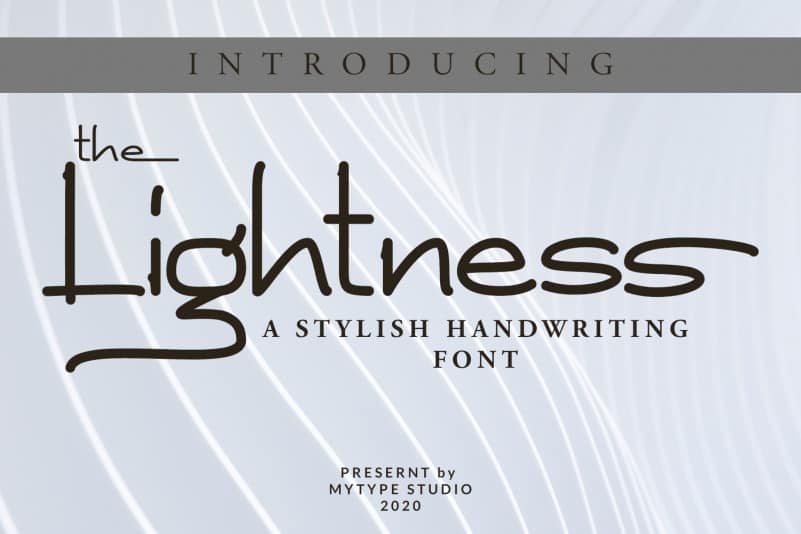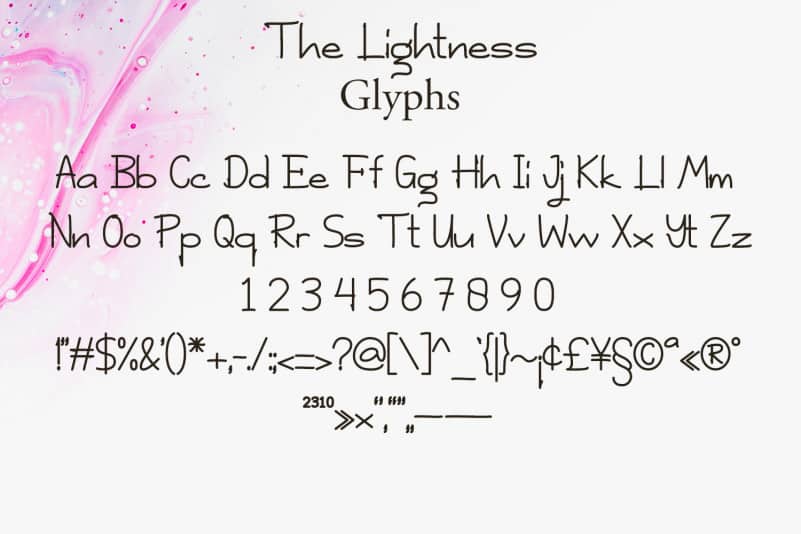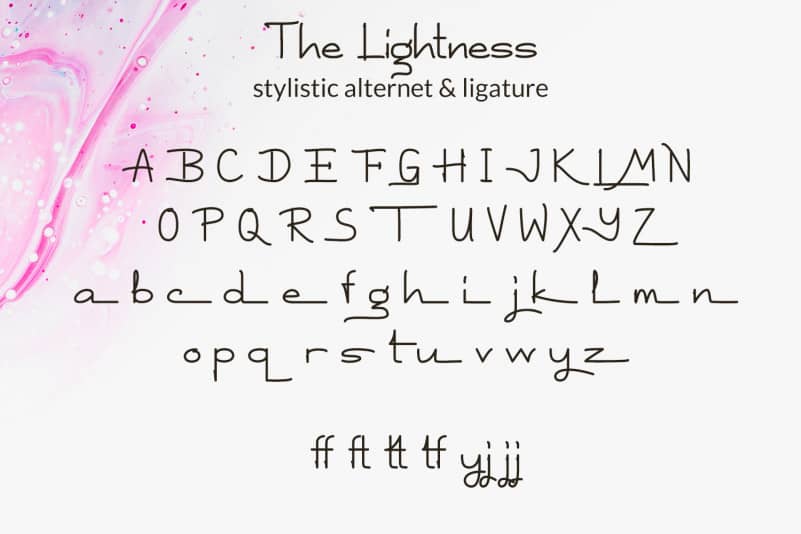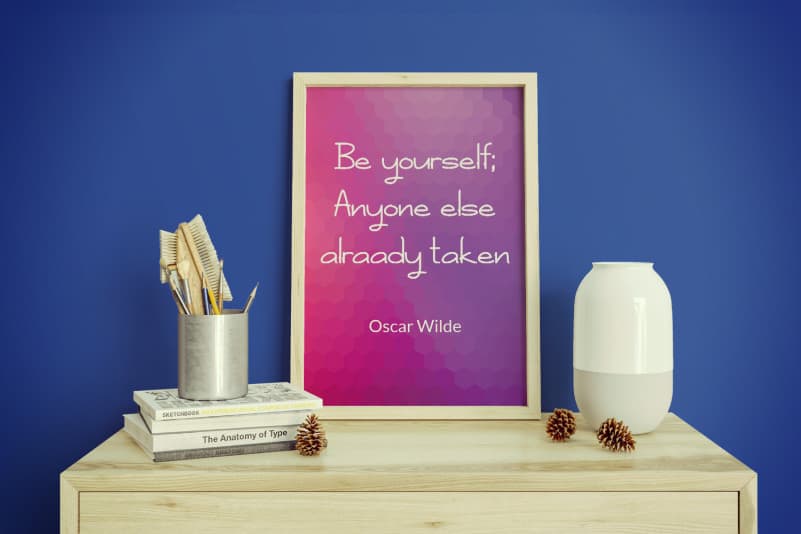
The lightness Handwritten Font
The lightness Handwritten Font is Stylish handwring typeface, with brings science fiction style, modern and minimalist. This typeface is available with stylistic alternates feature plus supports multilingual languages. It can appropriate for many logos, headlines, and titles.